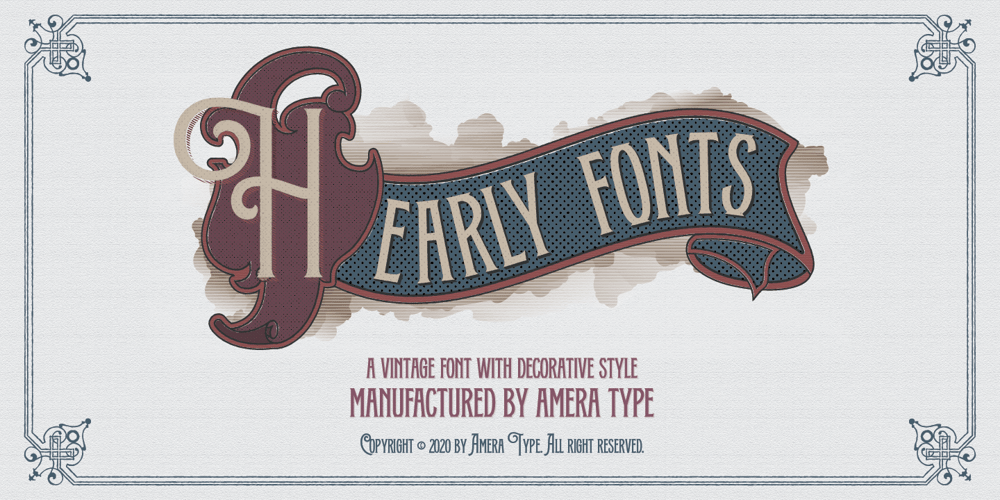
Hearly Font Family was designed by Cahyadi Ikhsan and published by Amera Type. Hearly contains 1 styles and family package options. Hearly is a special decorative typeface with elegant serif lowercase that looks more attractive, especially the vintage character which has a traditional feel in a modern way. Carefully and professionally crafted so you can see the details, distinctively of the royal era with a touch of art deco & victorian style in it. Furthermore, we provide ornaments that can be used to enhance the appearance these fontsWe call it the Hearly Font which is meant to create a time machine that can take us back to the good old days. This vintage font can be used to make things even better, such as documents, packaging labels, brochures, sign paintings, badges, certificates, placards, and so on. And we are very grateful to Spencer and Sons a.k.a Gilang from Ephemera Fonts, he really helped us in every way. We can learn a lot from himHope you enjoy it with Hearly Fonts